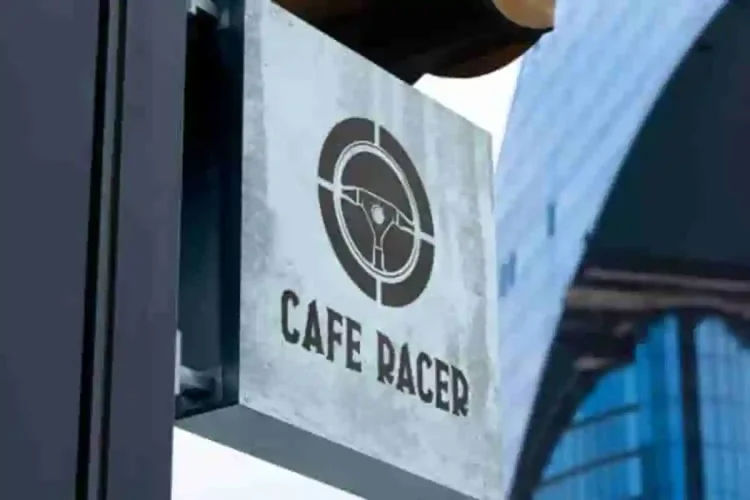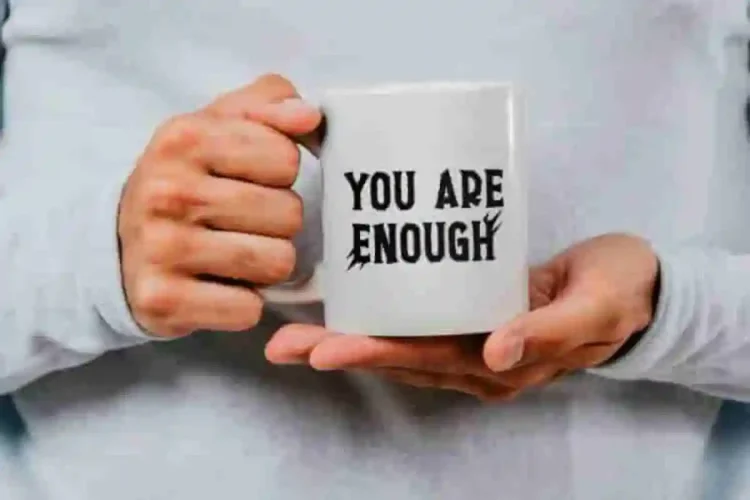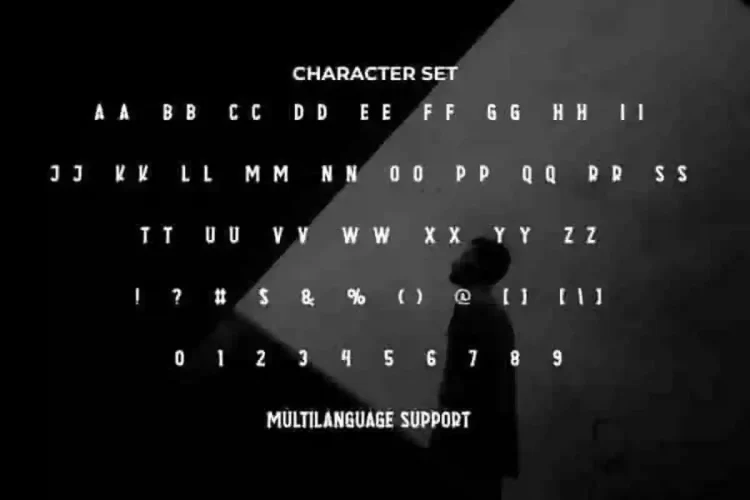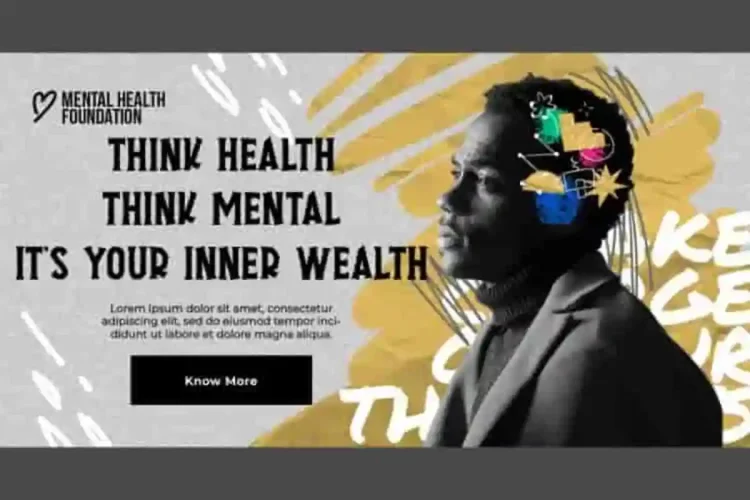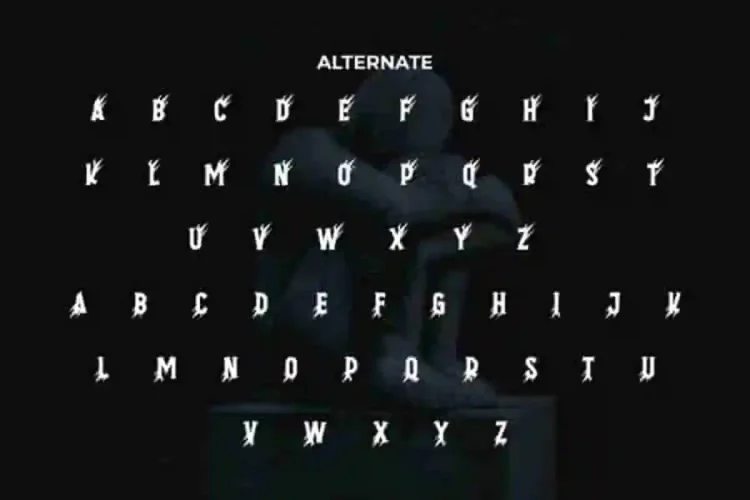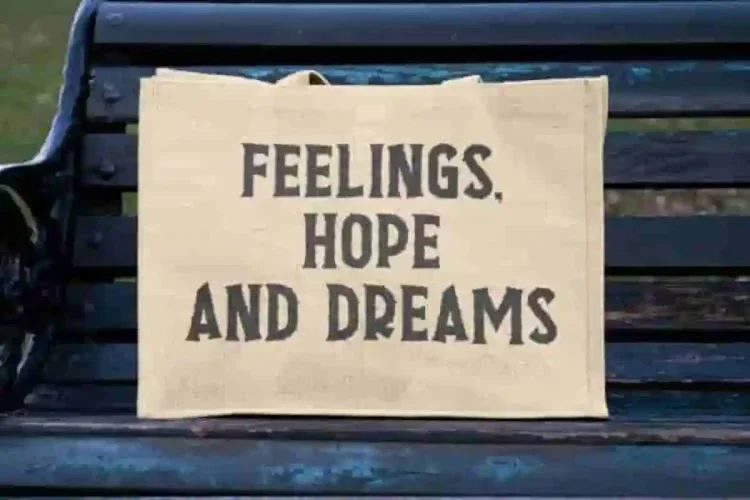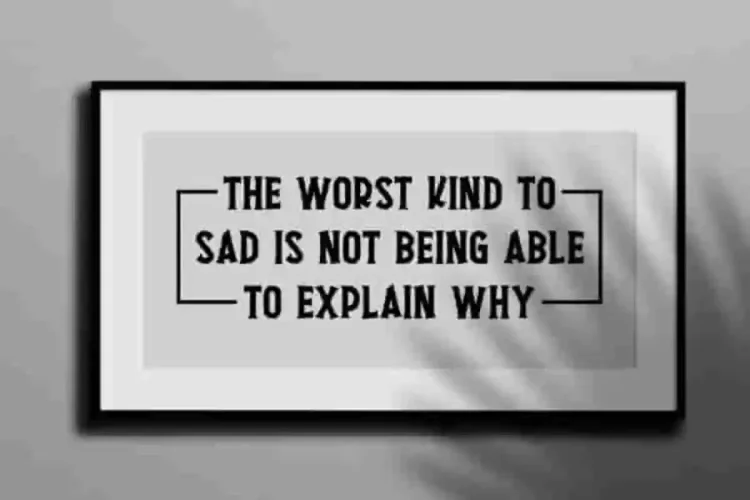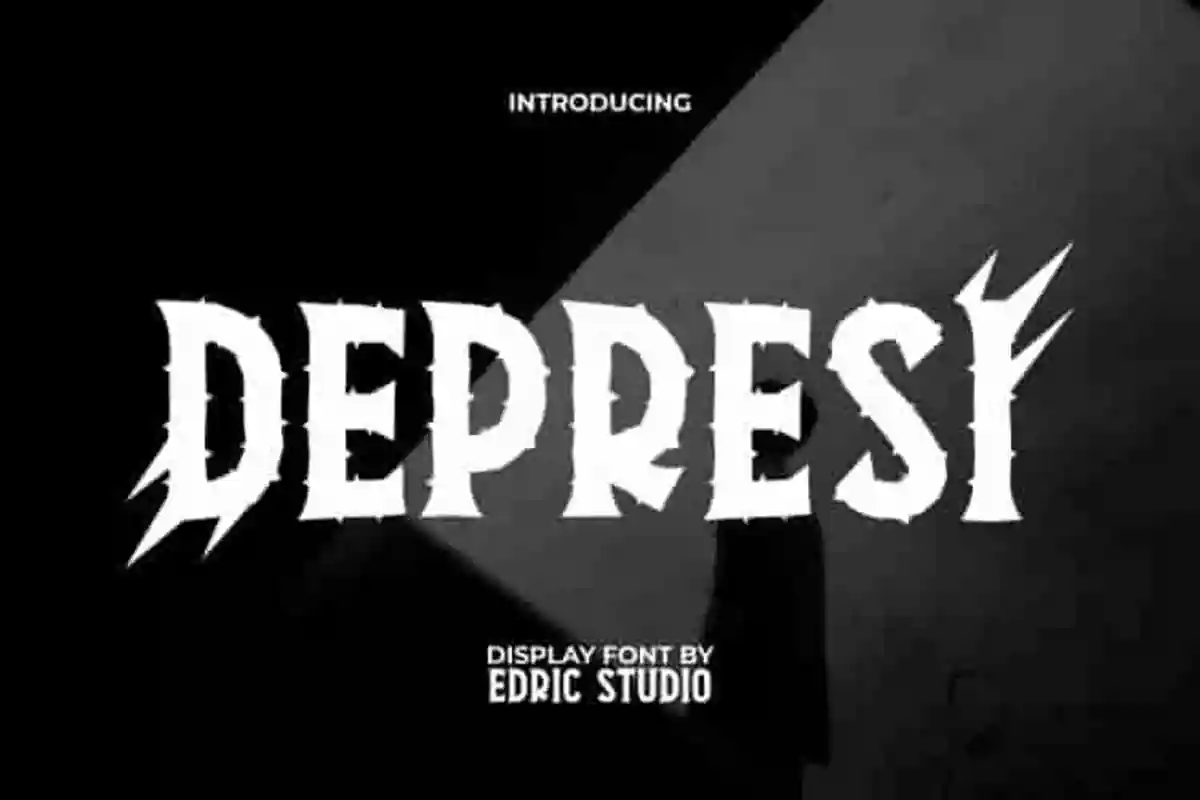
Depresi Font Blackletter a handcrafted display typeface that captures a striking balance between strength and style.
Depresi Blackletter Grunge Font comes with a full set of ALL CAPS for Uppercase and Lowercase letters, Number, Punctuation, Symbol, and Alternate. Designed with a bold and edgy touch, this font is perfect for those who want to make a lasting impression through powerful typography.
Depresi Font a playful typeface with unique decoration in each character. Combine different characters for a bespoke, handcrafted feel. It’s tested to work well in the Adobe Apps (Illustrator, Adobe InDesign, Adobe Photoshop) even work on Microsoft Word. Thanks to PUA encoding, every glyph and alternate character is accessible for custom creative control.